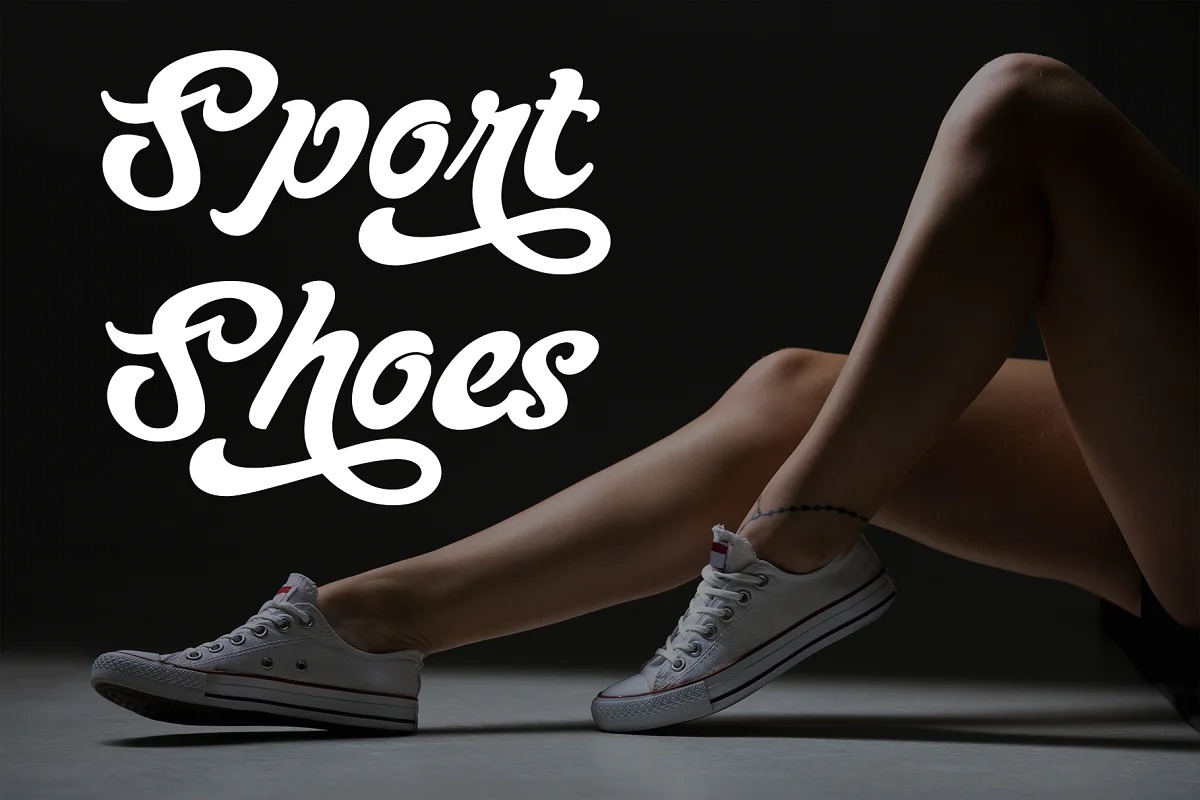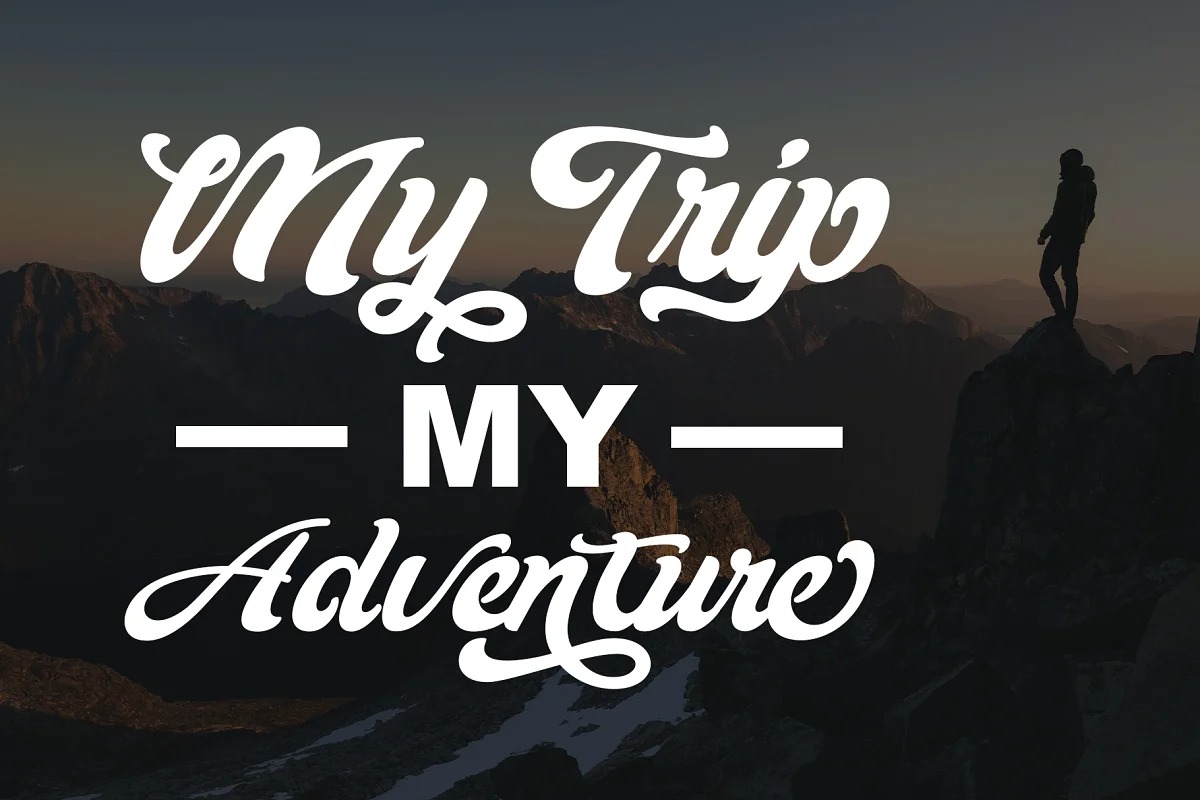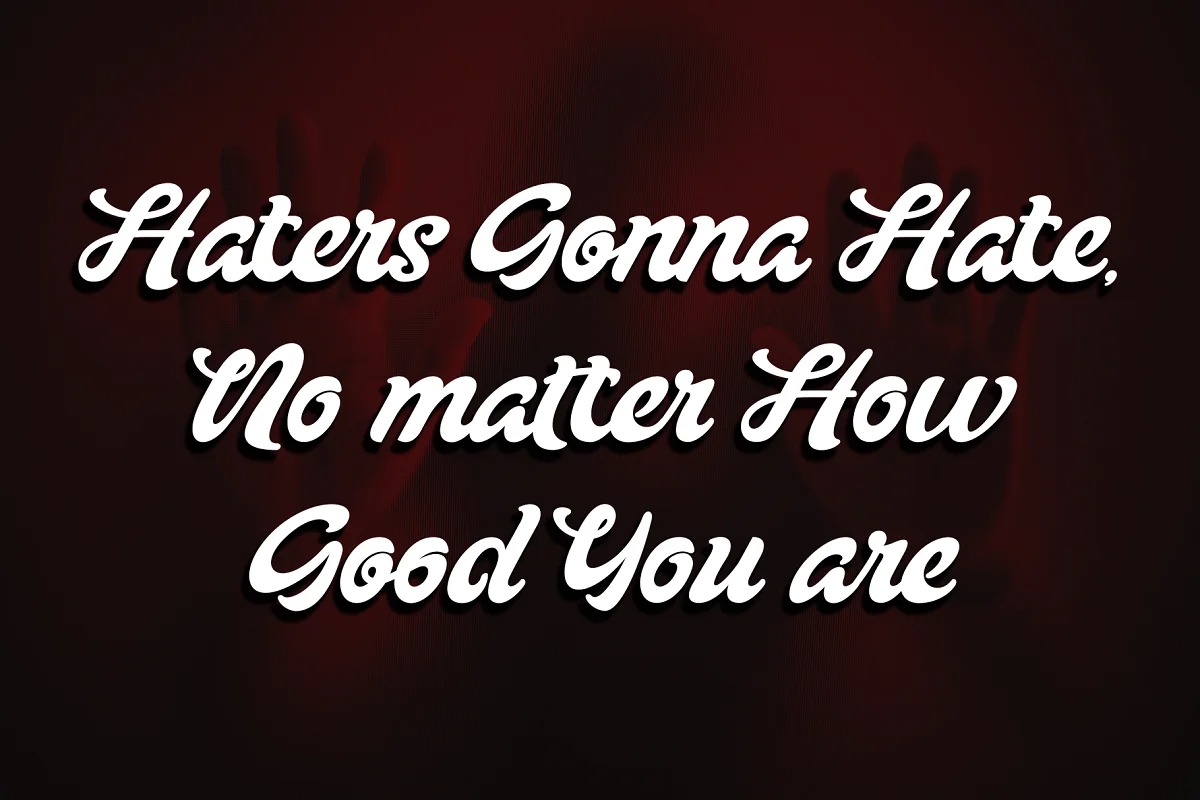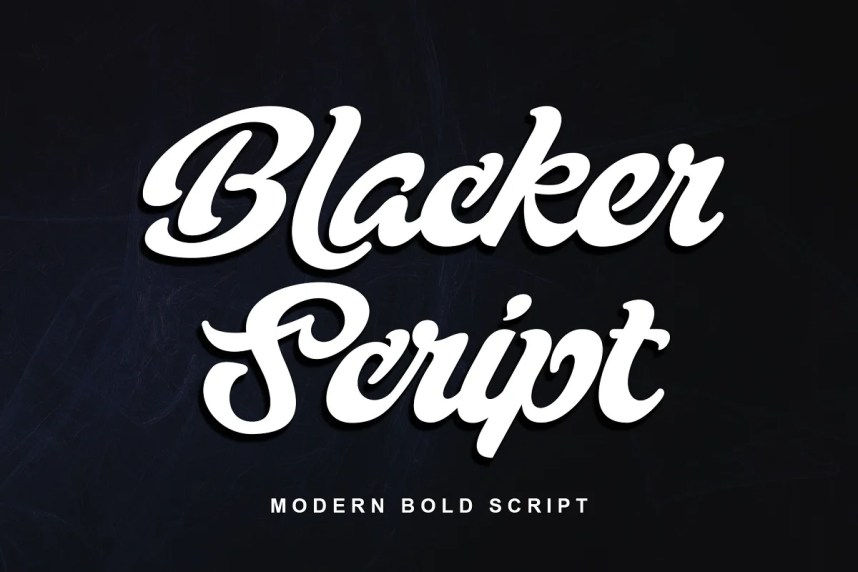
Blacker Script Font
Blacker Script Font is a vintage inspired script typeface that takes inspiration sign painting, baseball, restaurant branding and more. Its casual charm makes it appear wonderfully down-to-earth, readable, and, ultimately, incredibly versatile. This font will look outstanding in any context, whether used on busy backgrounds or as a standalone headline! This font is PUA encoded, which means you can easily access all of the glyphs and swashes!